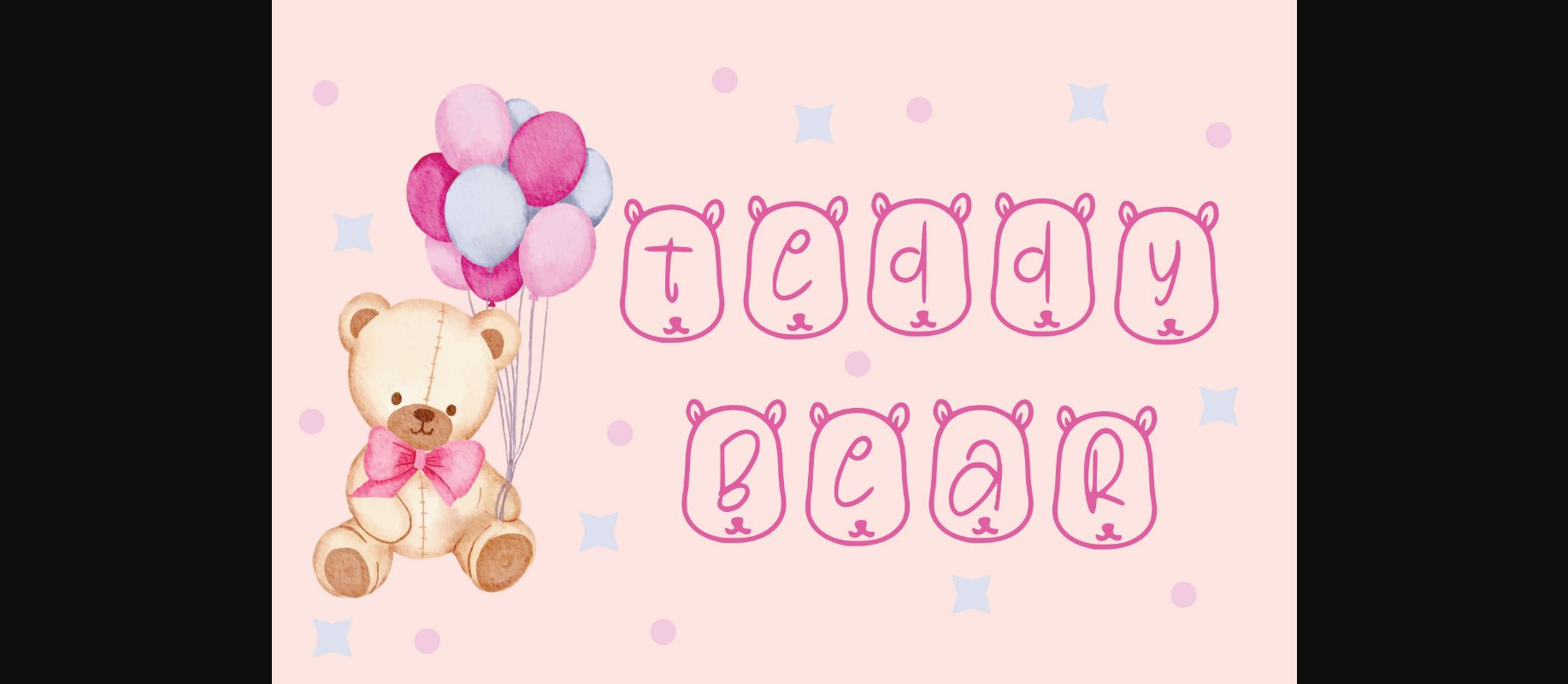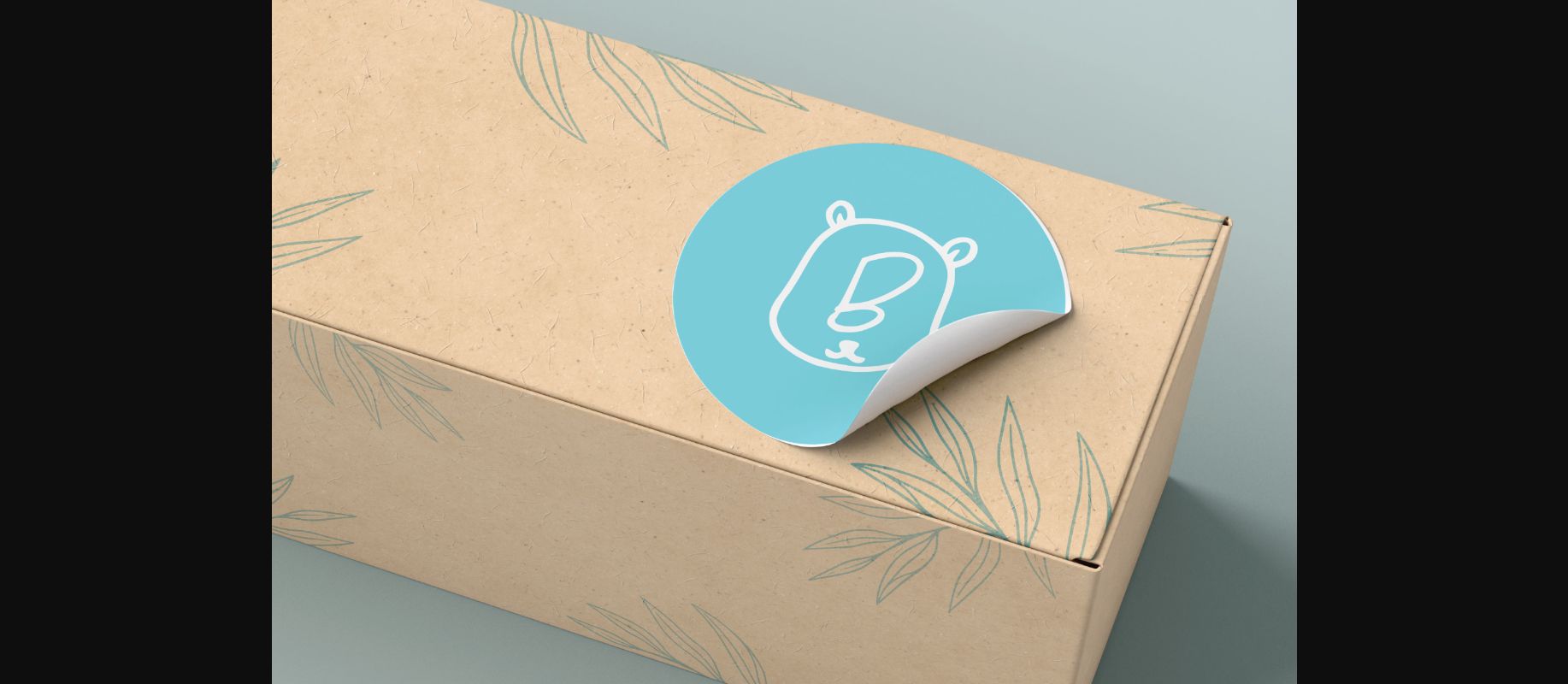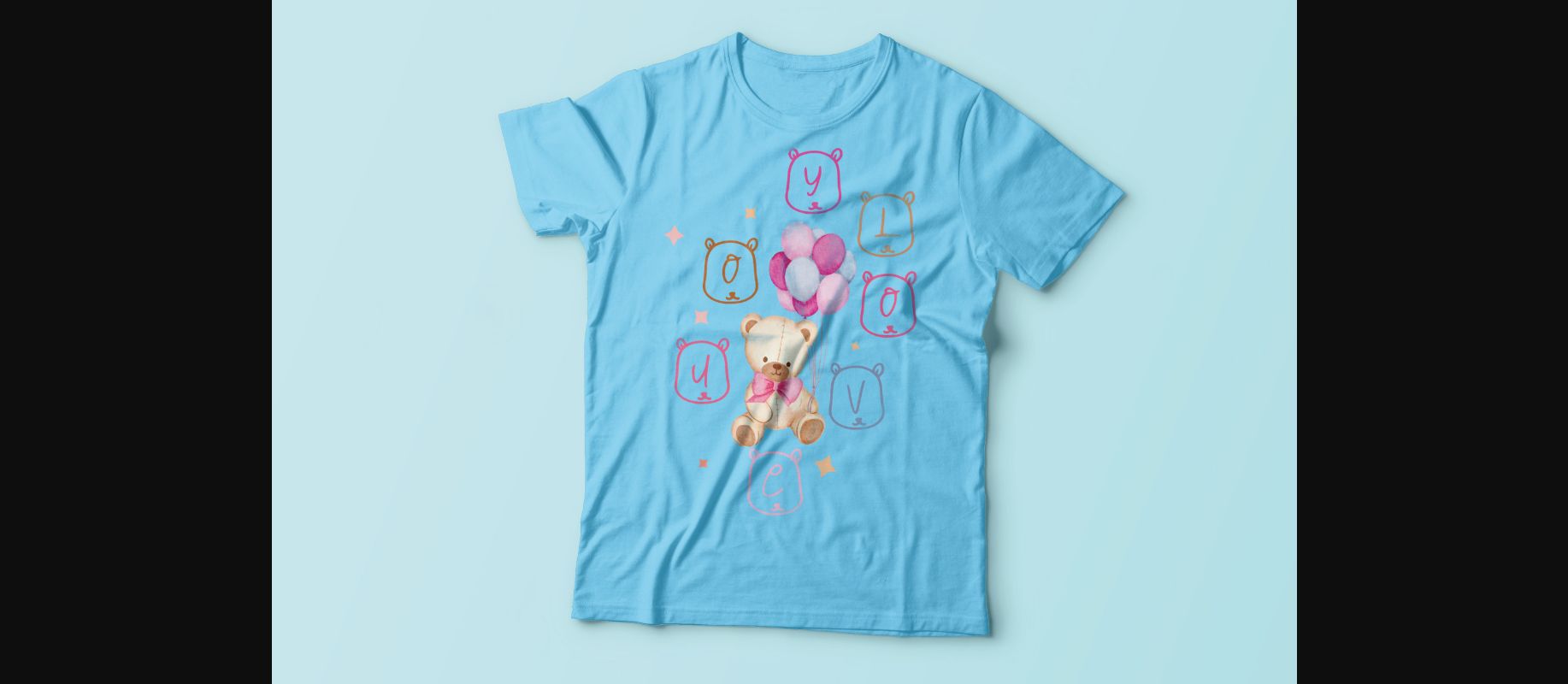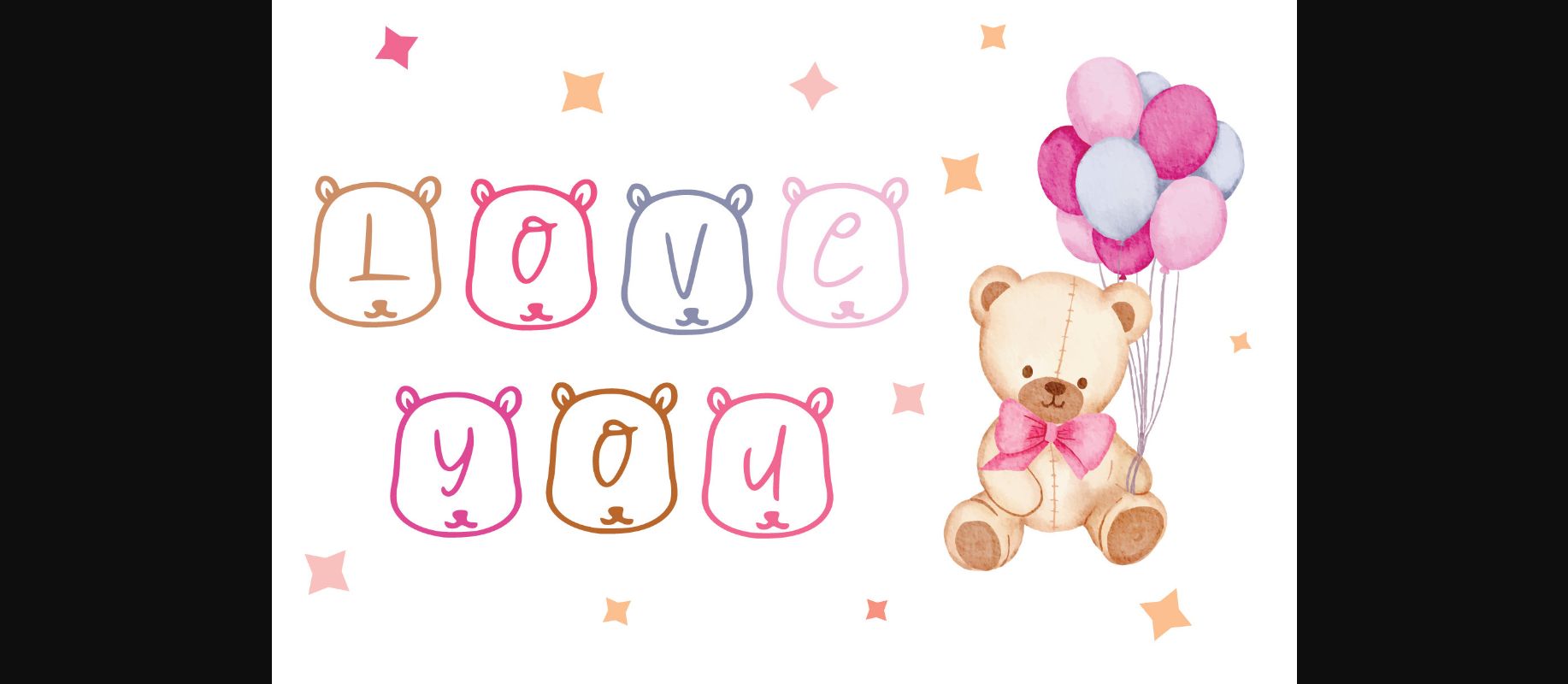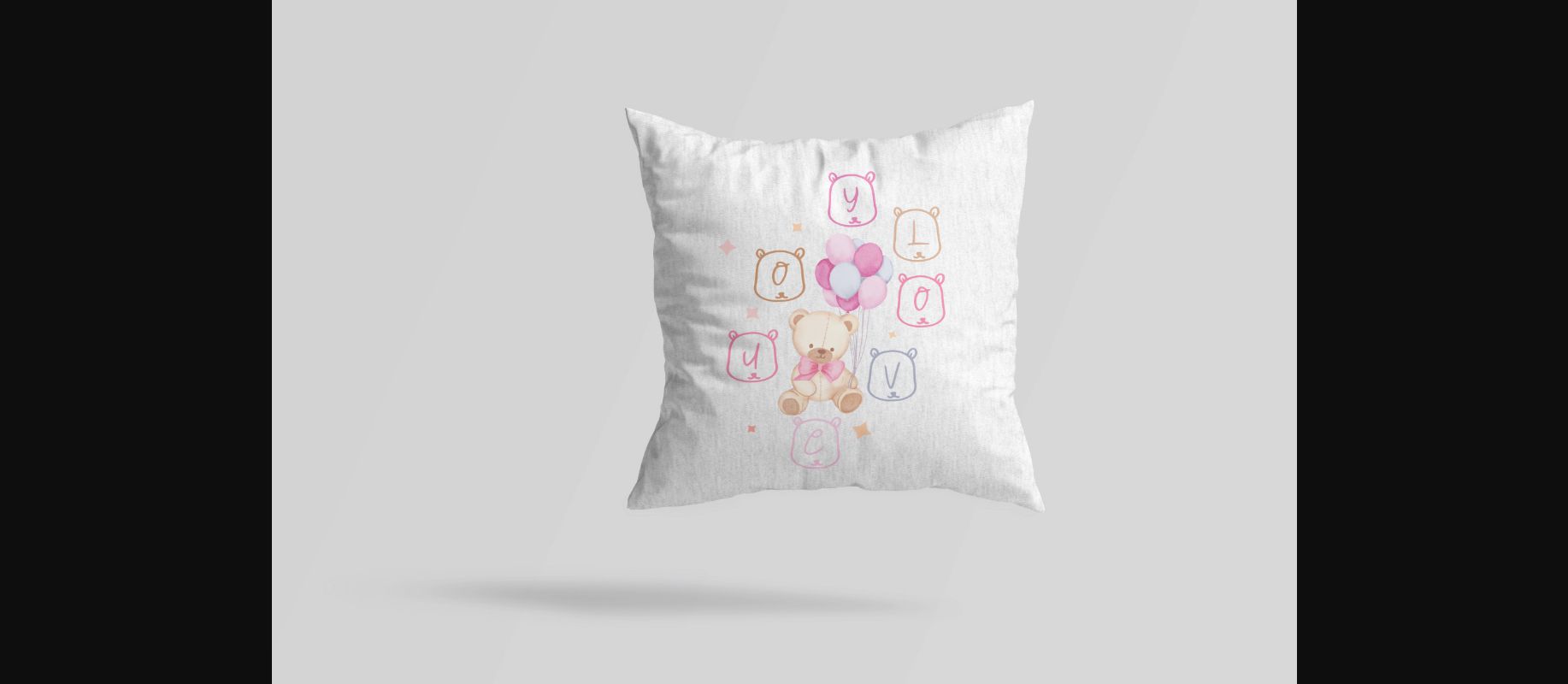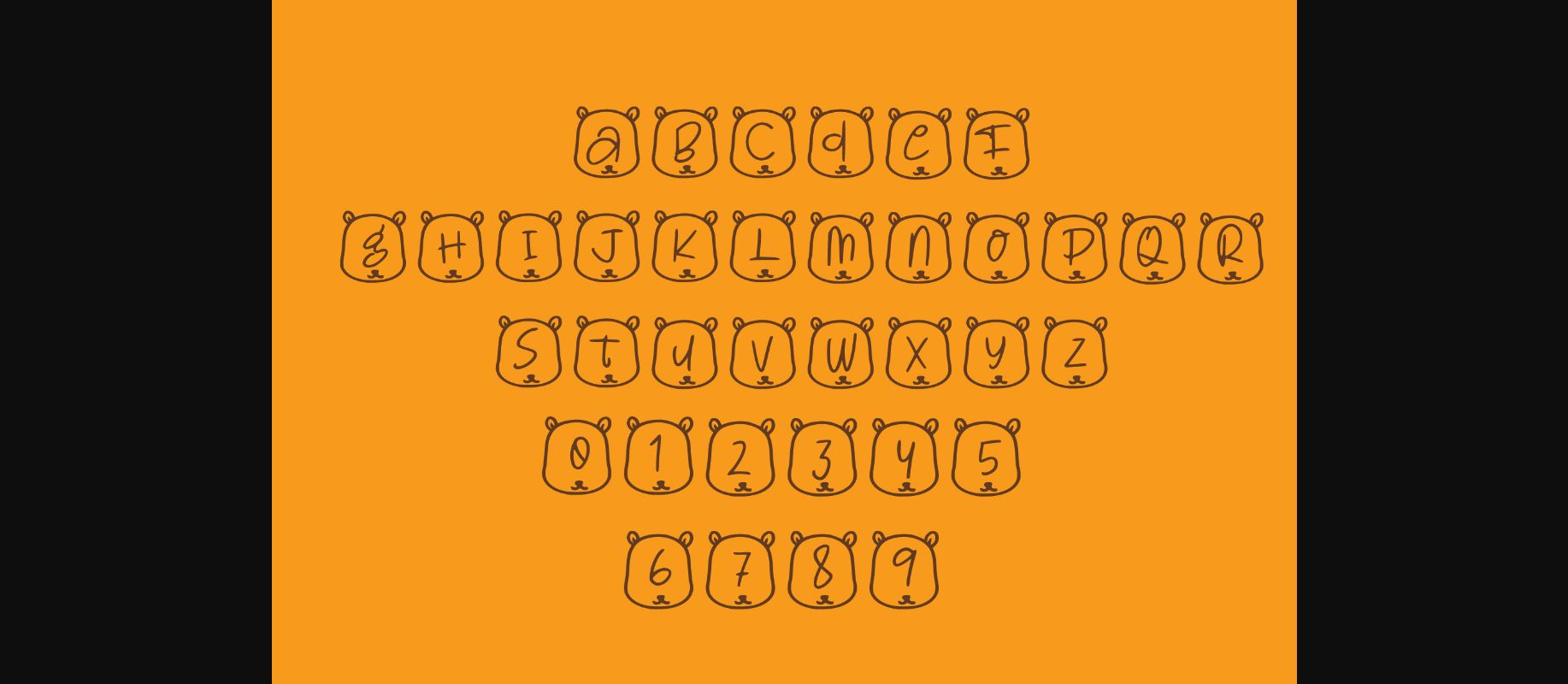
Teddy Bear Font
About Teddy Bear Font
Teddy Bear is a cute and incredibly unique decorative font. This original look will appeal to a wide range of crafty ideas, from letterheads and titles, to stationery.